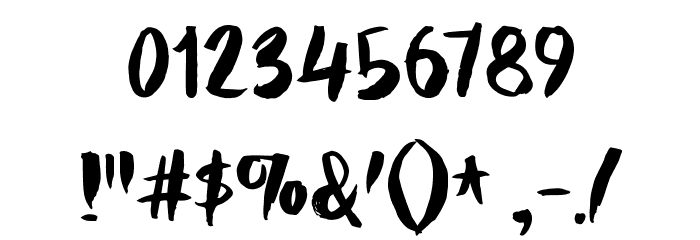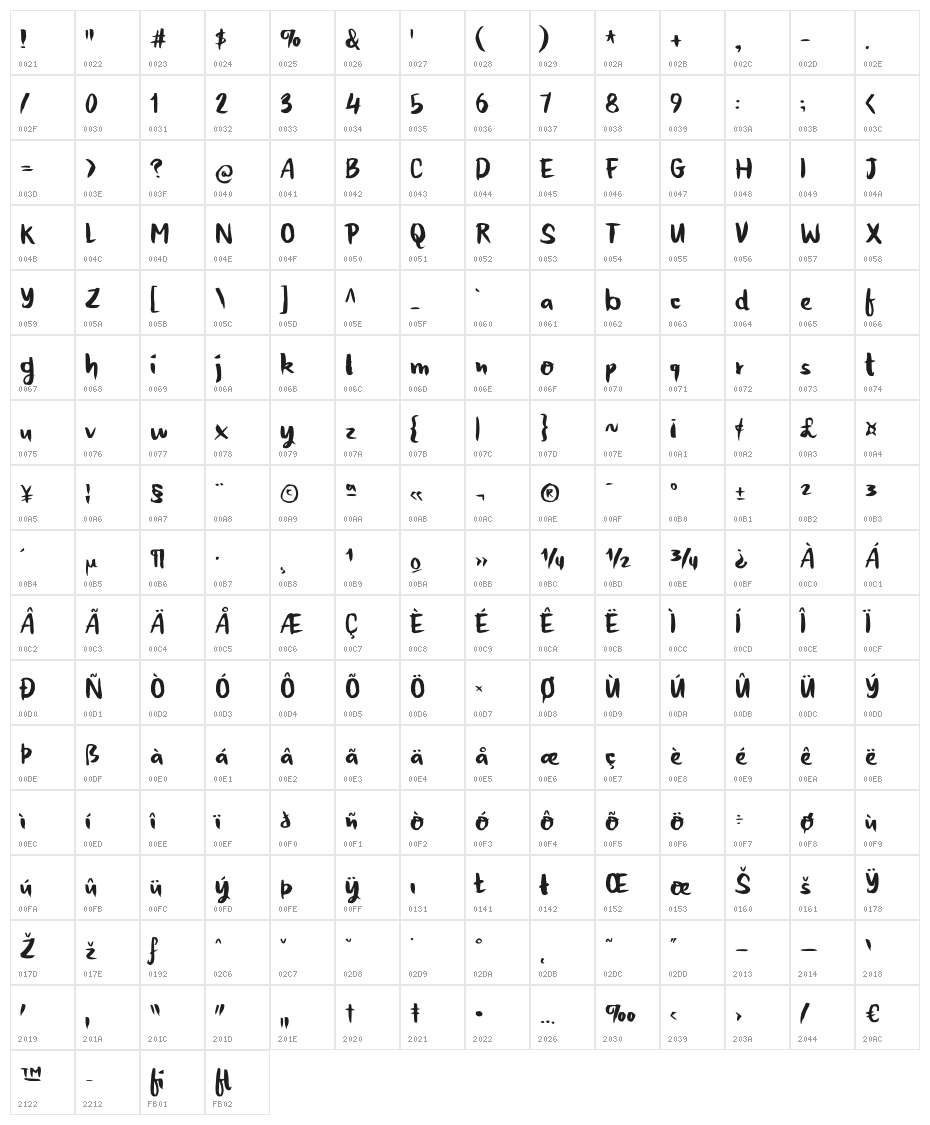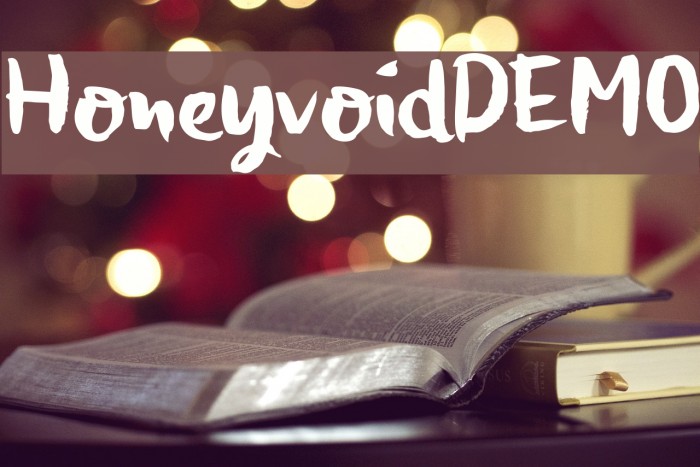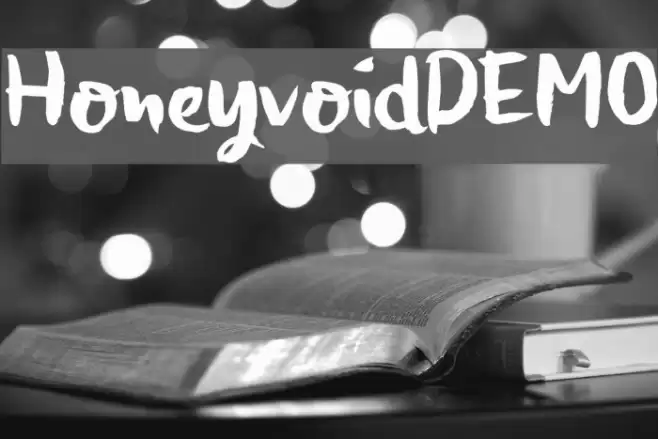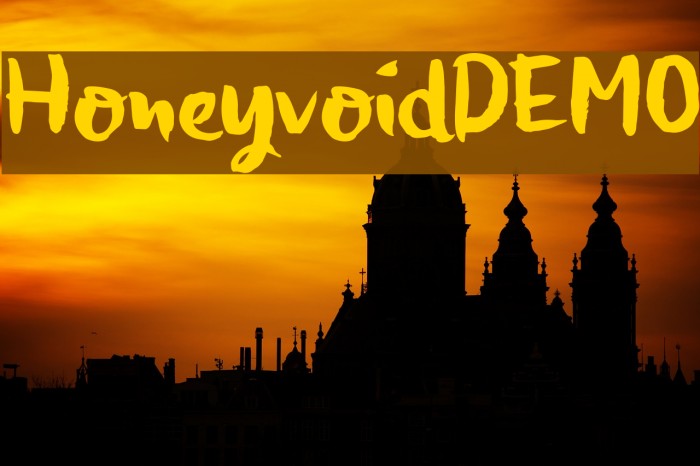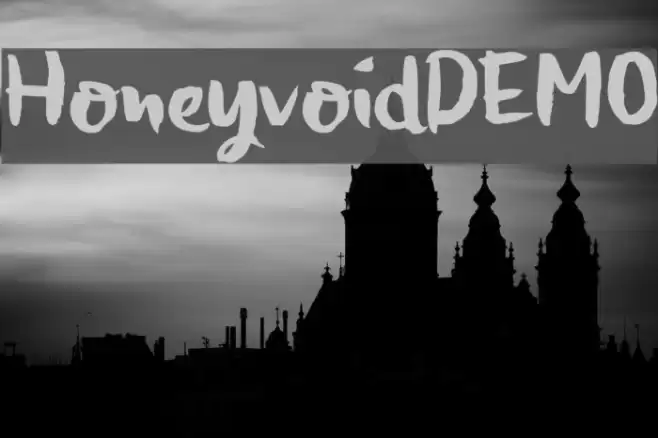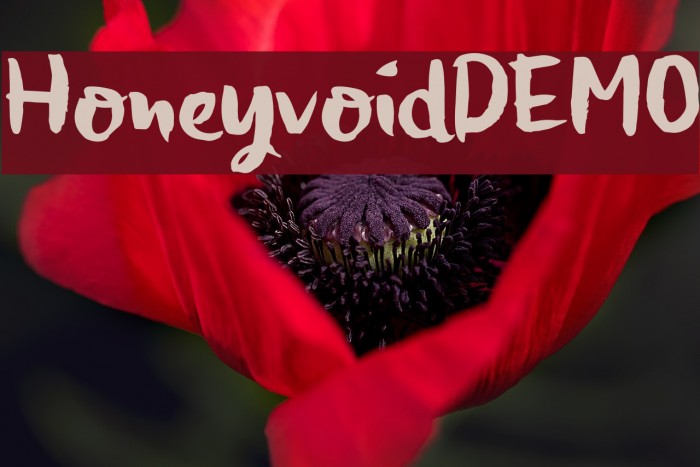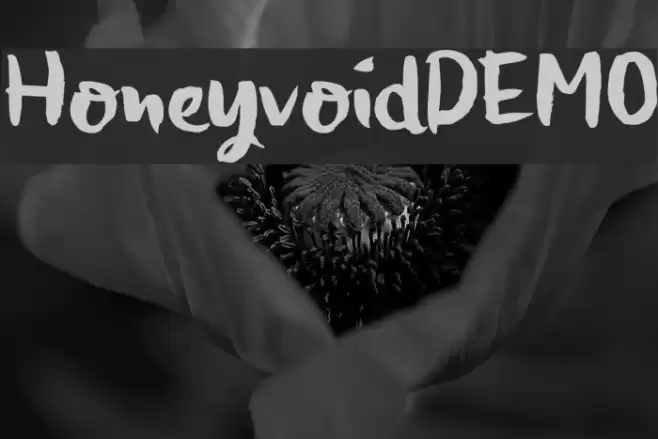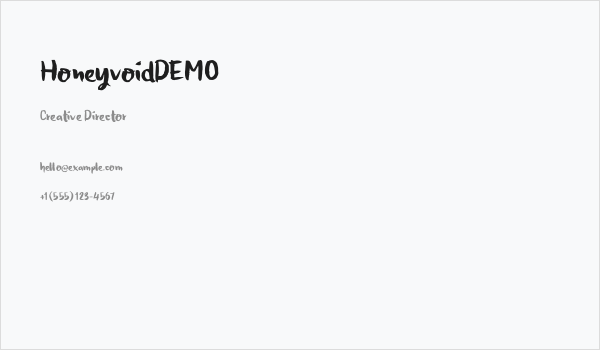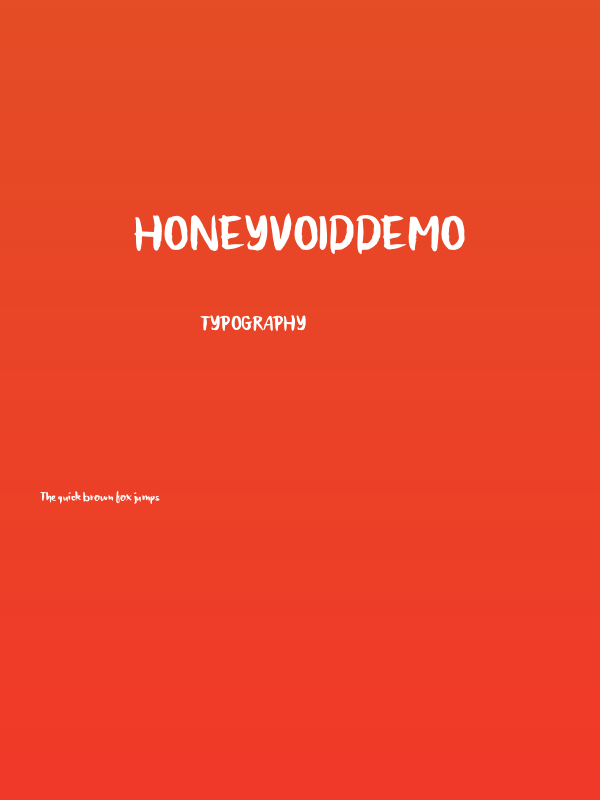
HoneyvoidDEMO Font
HoneyvoidDEMO Description
This font features a bold and expressive style with a hand-painted appearance. The characters are slightly irregular, giving it a dynamic and lively feel. The strokes are thick and varied, adding to its artistic and informal look. It captures a sense of movement and energy, making it suitable for creative and eye-catching designs. The uppercase and lowercase letters maintain a consistent style, while the numbers and special characters complement the overall aesthetic. This font is perfect for projects that require a personal touch or a bold statement.
| Proposed Projects | Ideal for posters, branding, packaging, and artistic projects that need a bold and creative touch. |